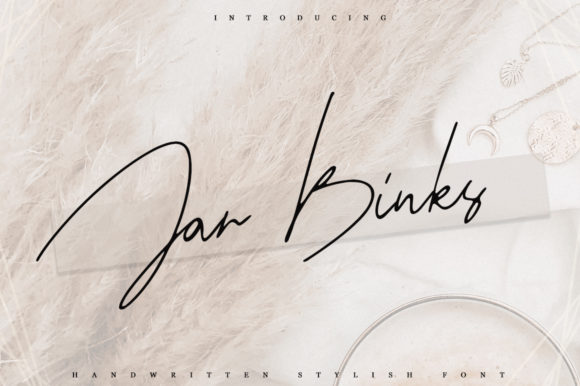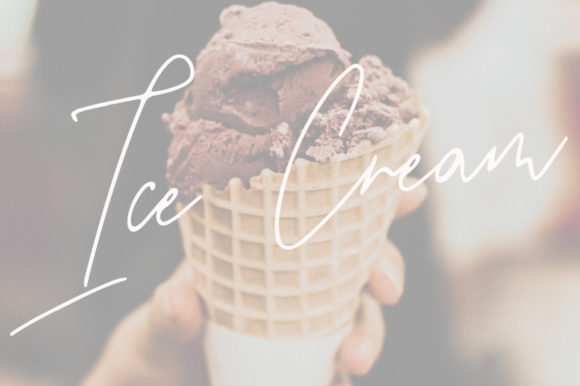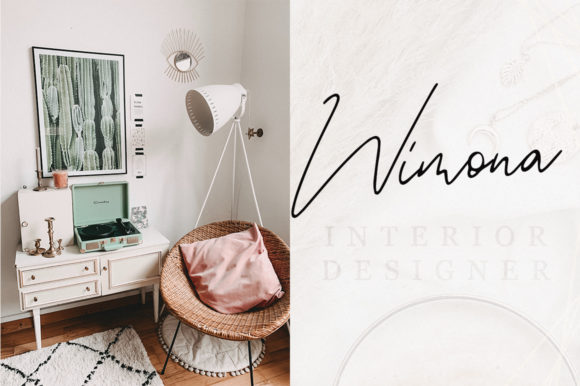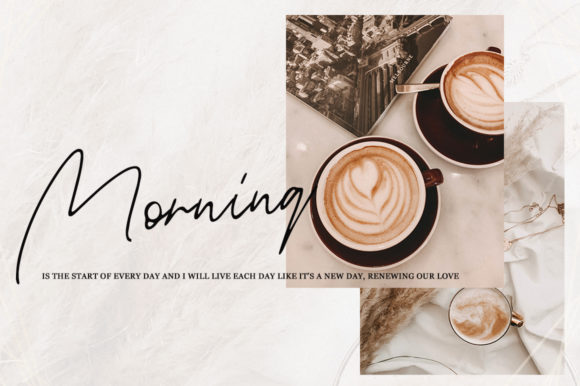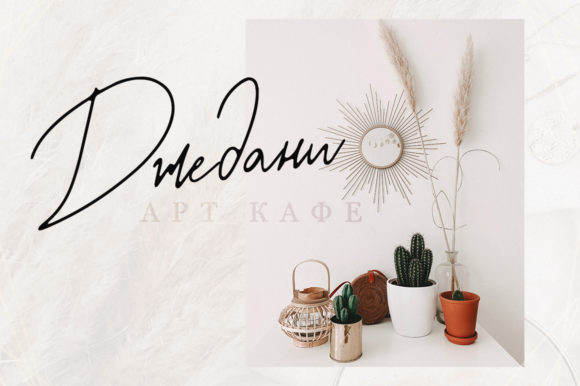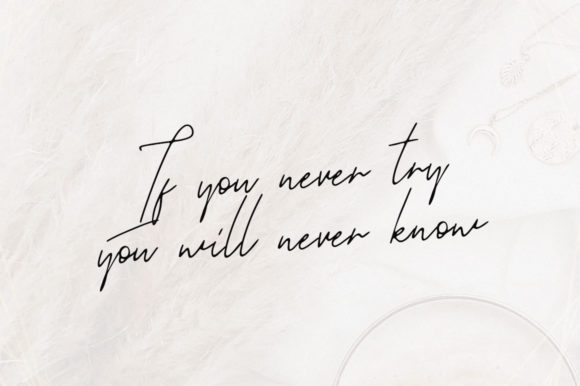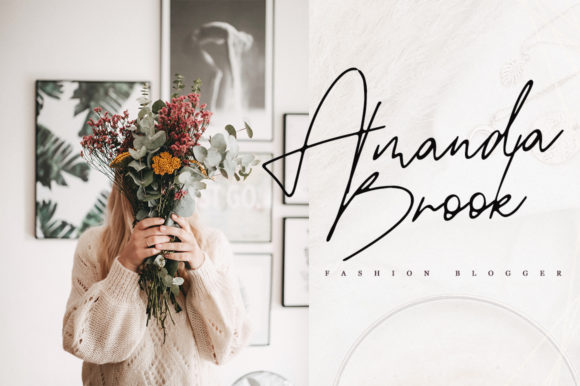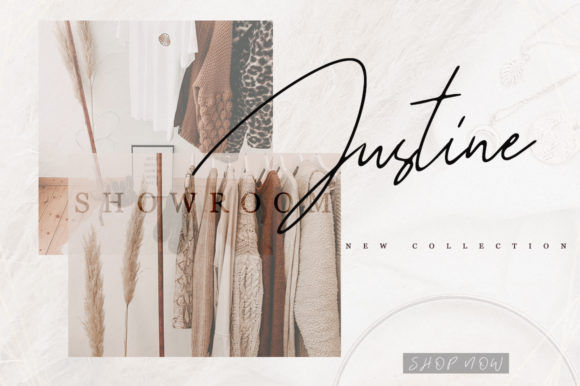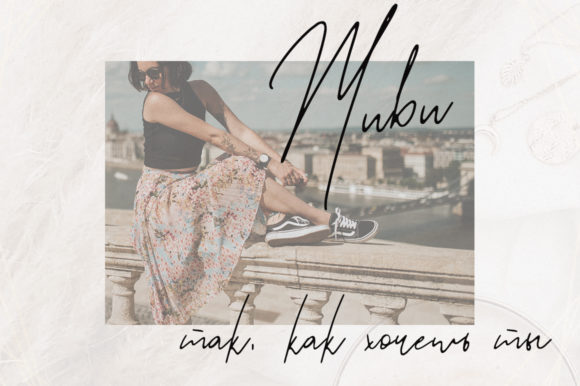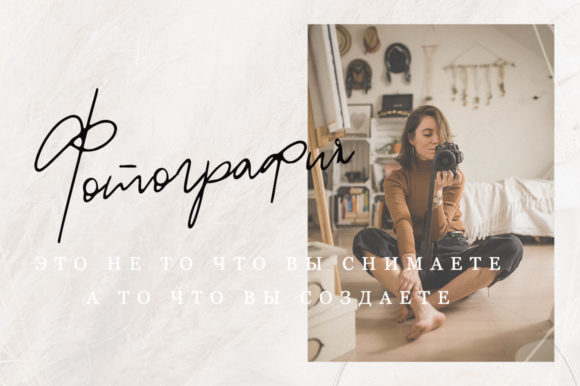
Jar Binks Font
About Jar Binks Font
Jar Binks is a beautiful handwritten font with gentle curves and a bold feel. Get inspired by its modern simplicity.